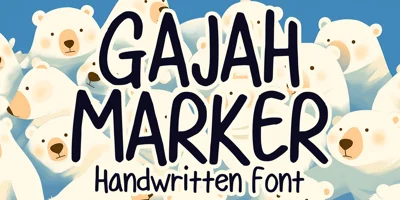
Gajah Marker Font
Gajah Marker Font is perfect for creative projects including poster designs, children's book illustrations, playful branding materials, educational content, greeting cards, social media graphics, handwritten-style logos, craft projects, and casual marketing materials that require a fun and approachable aesthetic.
What makes Gajah Marker Font so exciting is its authentic hand-drawn marker appearance that brings warmth and personality to any design project. This distinctive typeface captures the natural irregularities and organic flow of real marker strokes, creating an genuine handcrafted feel that resonates with audiences seeking authentic, human-touched design elements in today's digital world.
Gajah Marker Font typically comes in multiple font families including regular weight, bold variations, and sometimes italic styles, providing designers with versatile options to create hierarchical layouts and emphasis where needed across their creative projects.
This playful yet professional Gajah Marker Font offers exceptional versatility for designers working on projects that demand a casual, friendly, and approachable typography solution. Whether you're creating children's content, informal branding, or artistic layouts, this font delivers the perfect balance of readability and creative flair. The marker-inspired design makes it ideal for both digital and print applications, ensuring your message connects with audiences through its warm, inviting character that stands out in today's competitive design landscape.